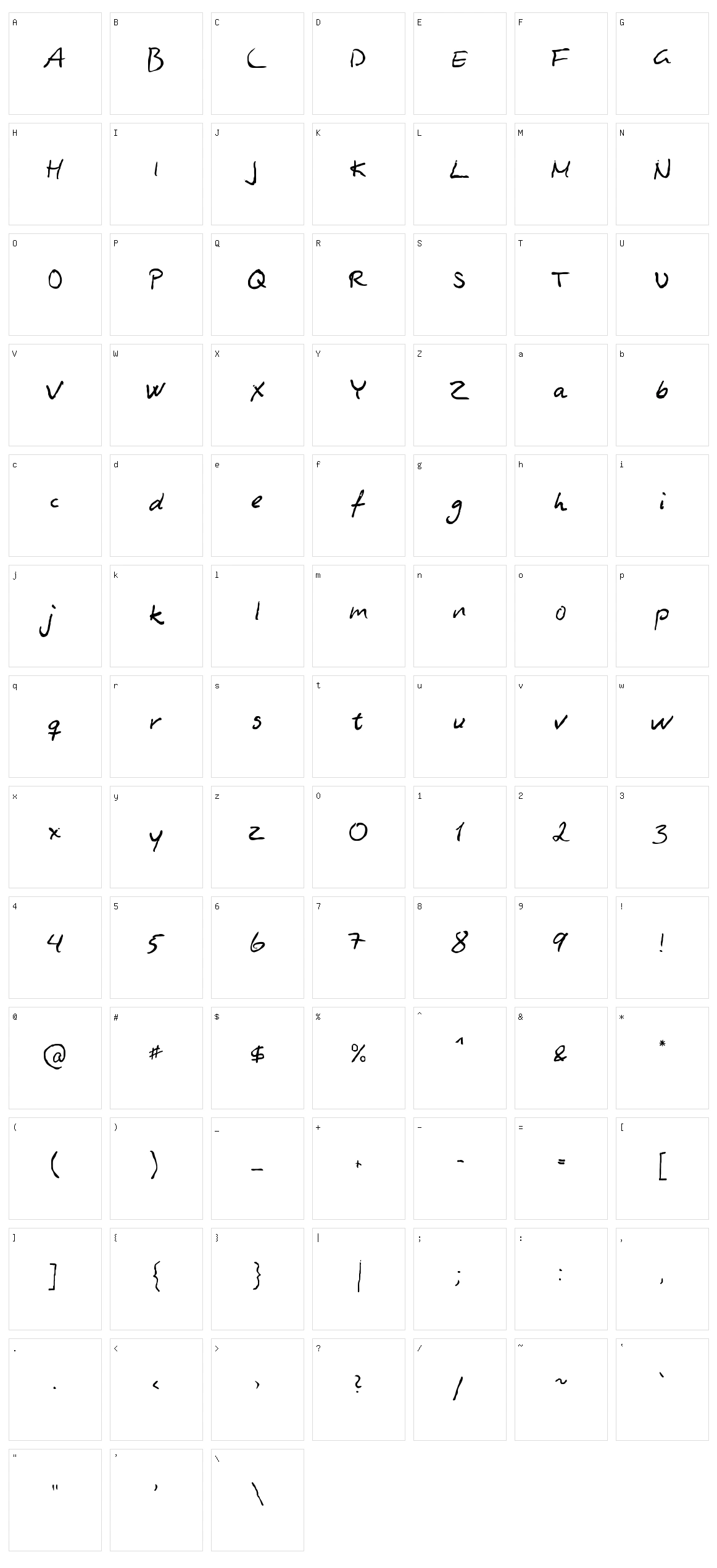
The free font Asphyxiate is carefully designed by Espen Morten Kvalheim, showcasing a thoughtful balance of creativity and usability and falls under the Script font style. When you download the ZIP file, it contains only 28.98 KB of font files, making it lightweight and quick to download. Please review the license details below to understand permitted usage and distribution rights. If license information is not available, we recommend using this font for personal projects only or contacting the author directly for commercial usage permissions.
asphyxiate